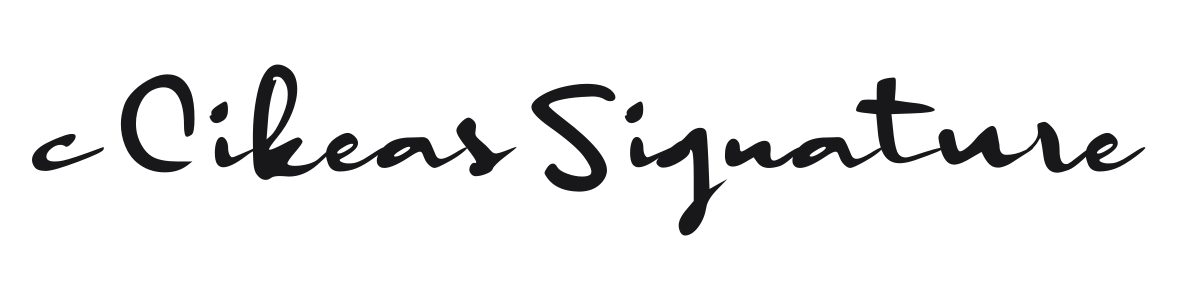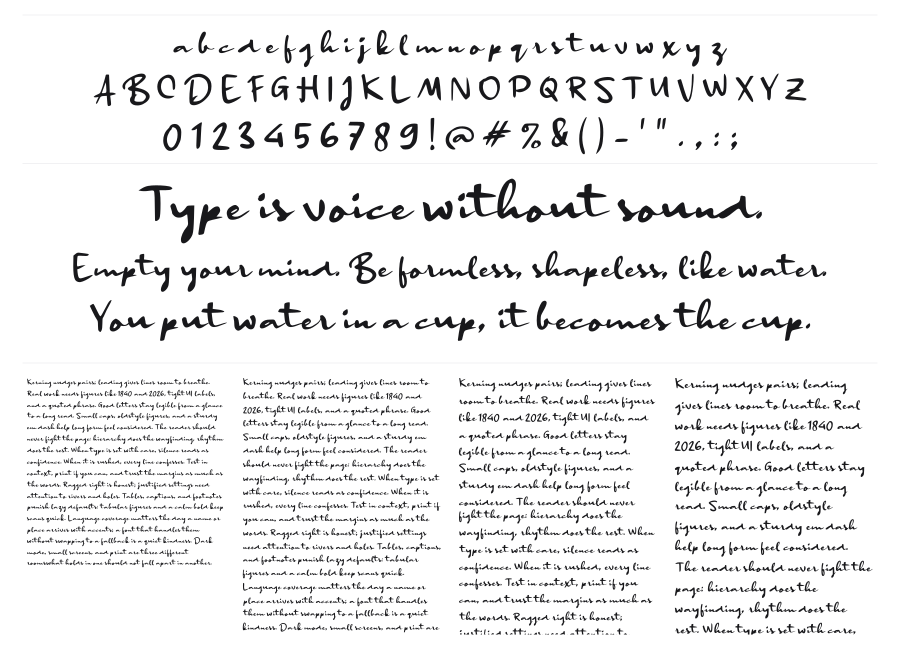
c Cikeas Signature
Cikeas Signature is a natural brush script that mimics the loose, fluid energy of an ink signature. High stroke contrast between thick downstrokes and thin hairlines gives it an authentic handcrafted feel without feeling stiff or overworked. Strong at large sizes for logos, packaging, and editorial headlines.